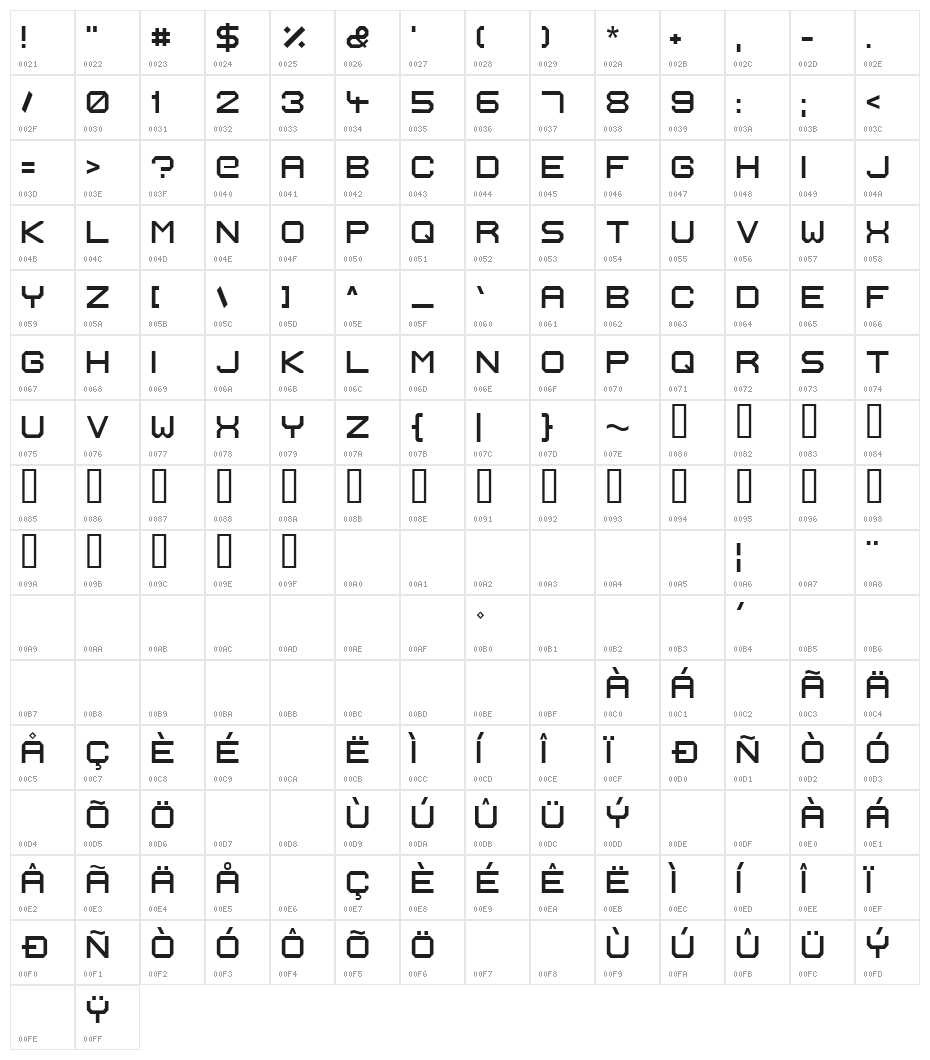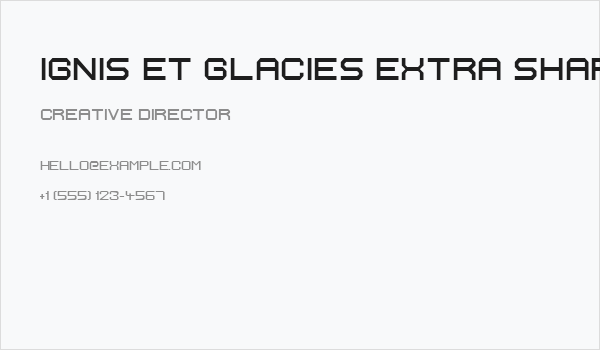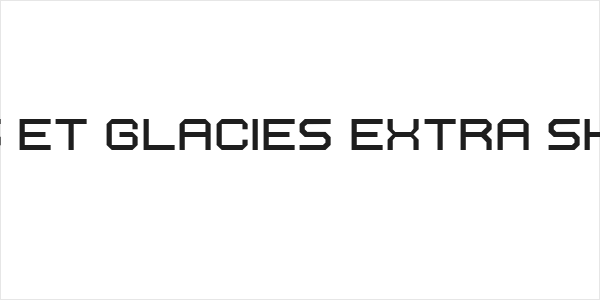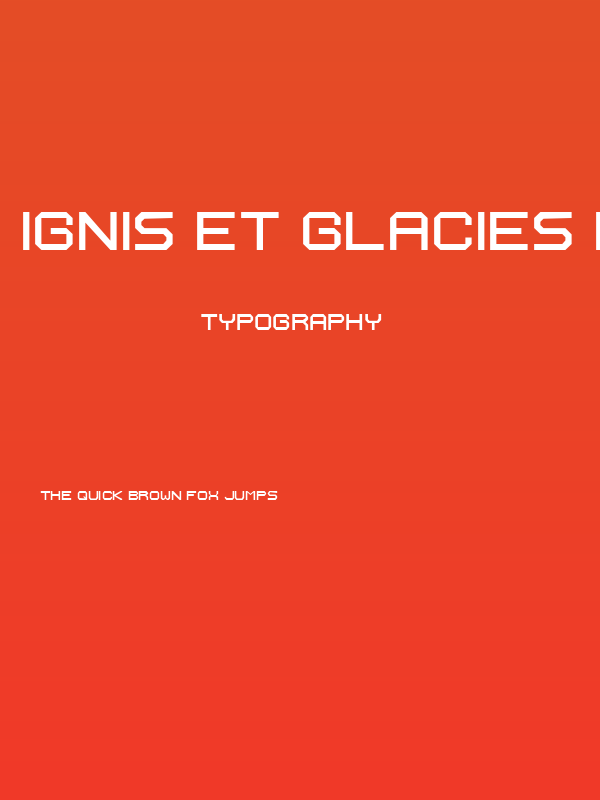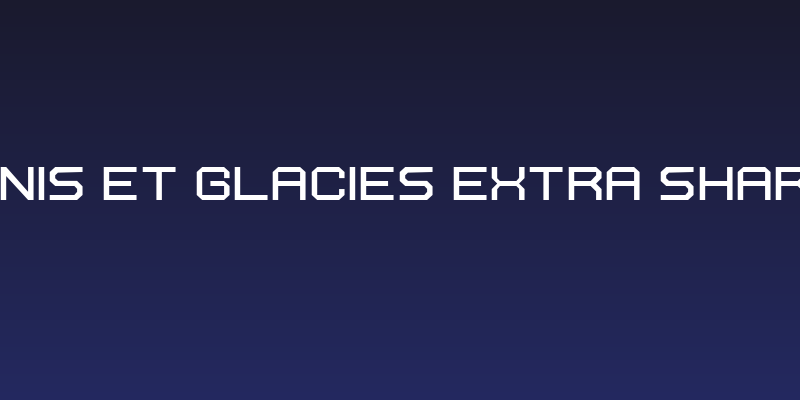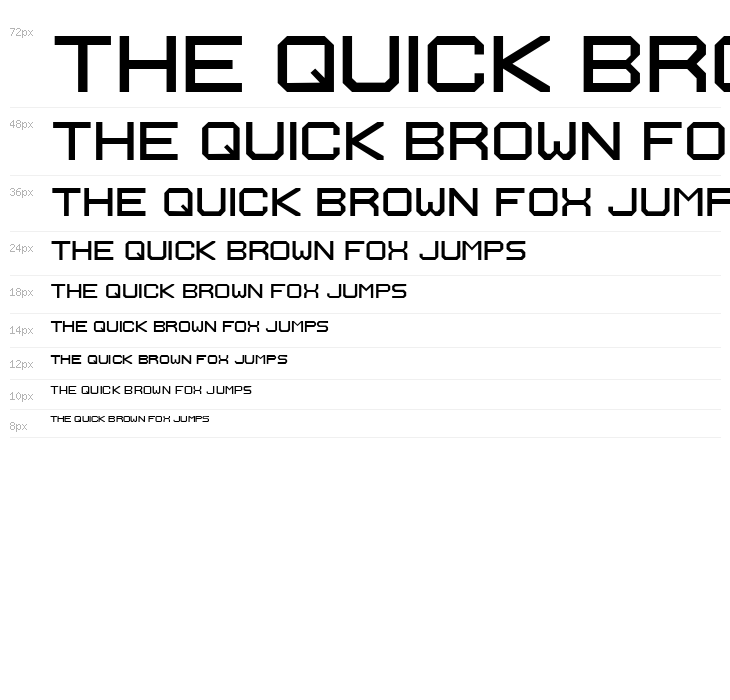
Ignis et Glacies Extra Sharp Font
Ignis et Glacies Extra Sharp Description
This font features a geometric and angular design, characterized by sharp edges and a futuristic aesthetic. The uppercase and lowercase letters maintain a consistent height, giving a uniform appearance. The numerals are distinct, with a modern twist that complements the overall style. Special characters are crafted with the same attention to angular detail, ensuring a cohesive look across all glyphs. The font's structure is clean and precise, making it suitable for projects that require a bold and striking visual impact.
| Proposed Projects | Ideal for technology branding, video game titles, sci-fi posters, and modern digital interfaces. |